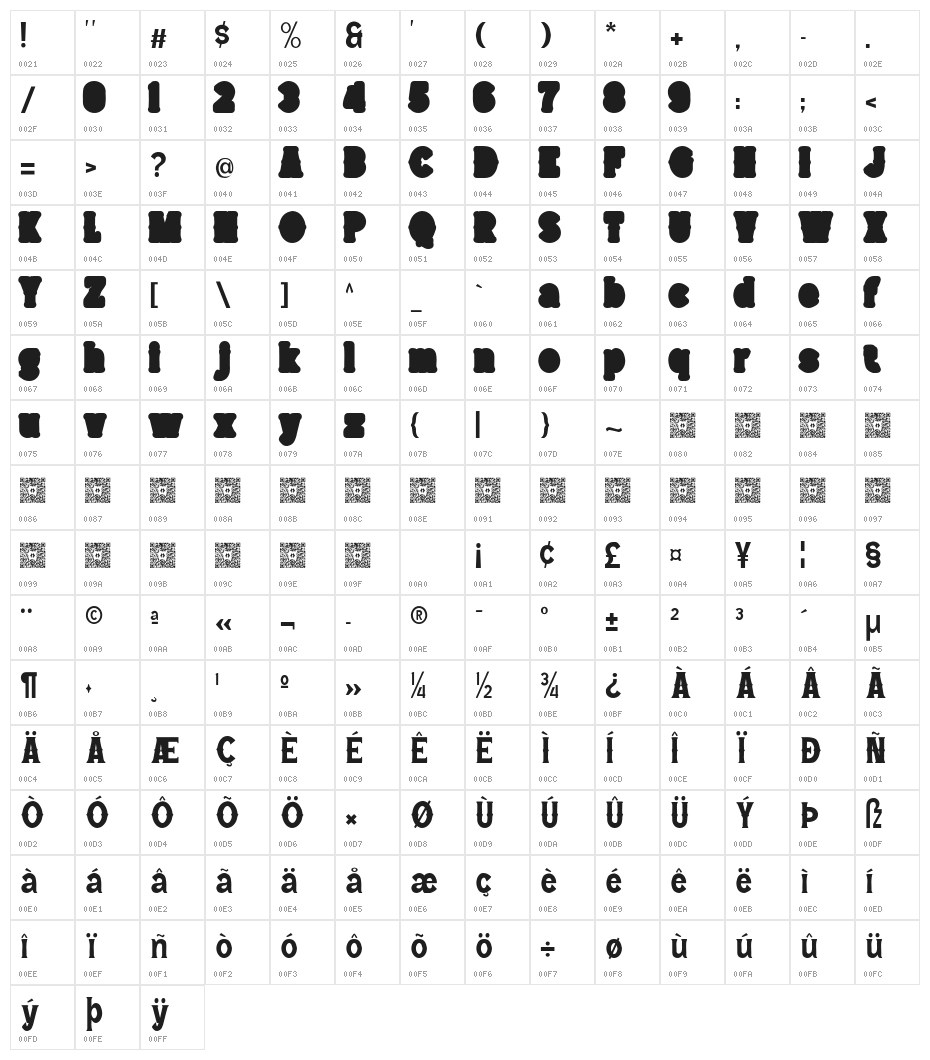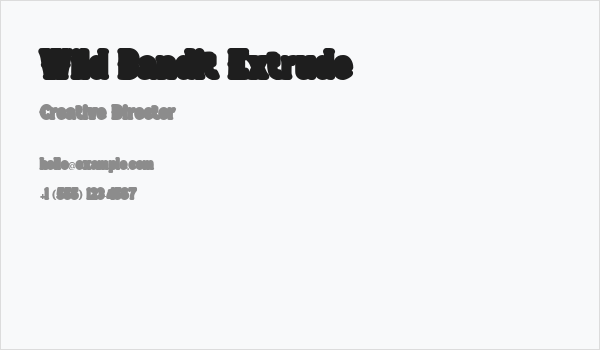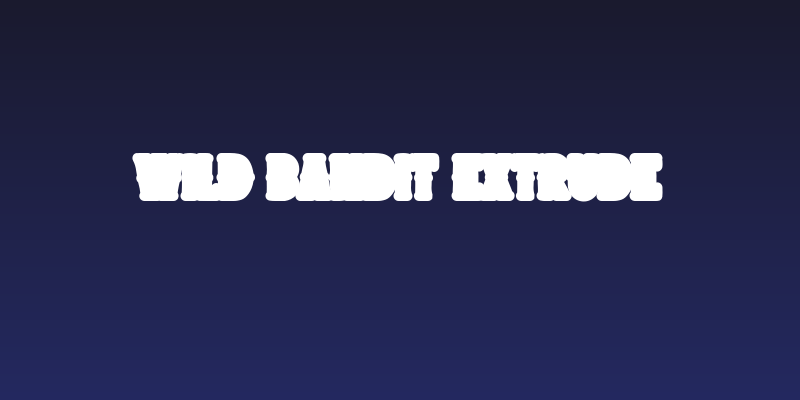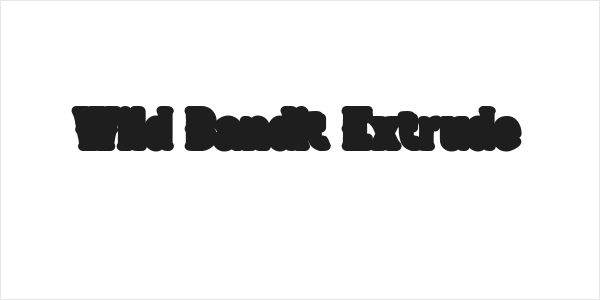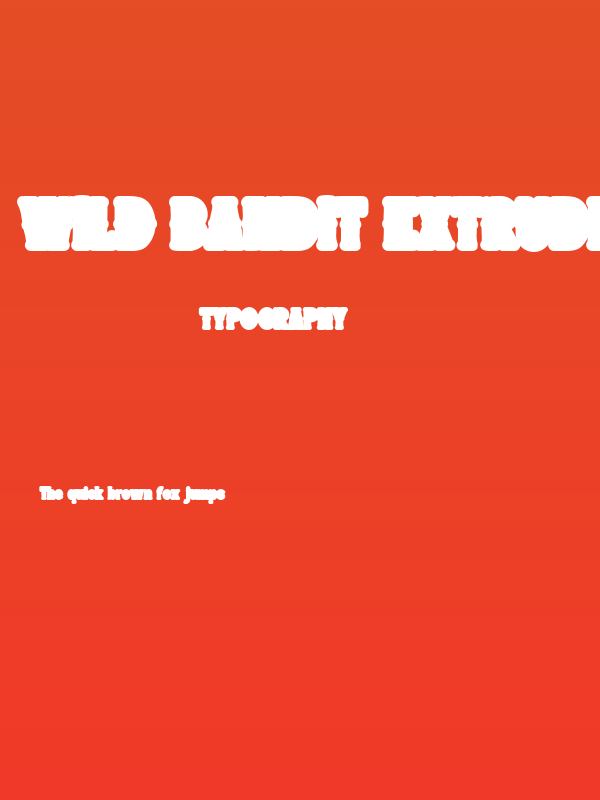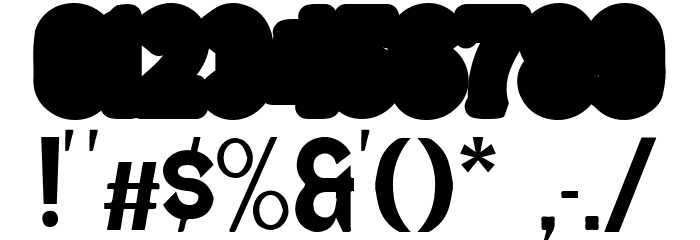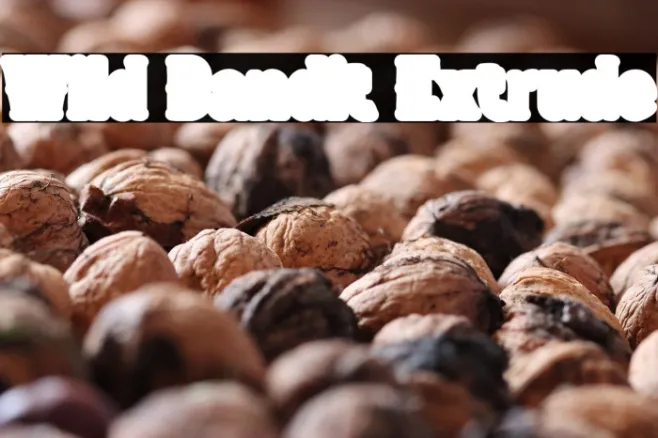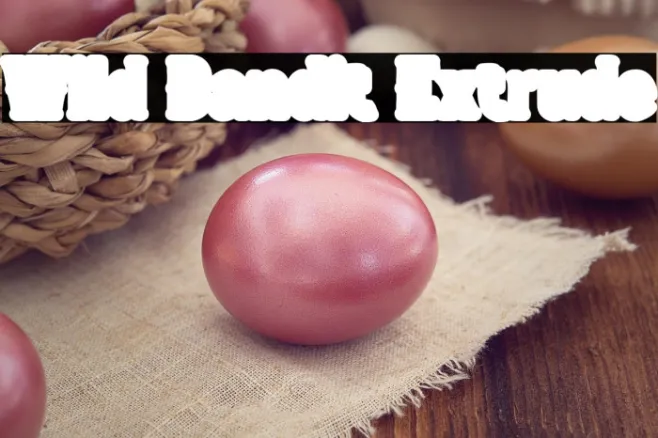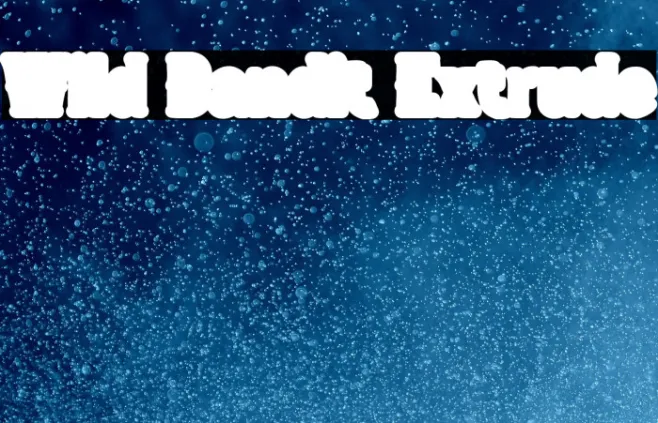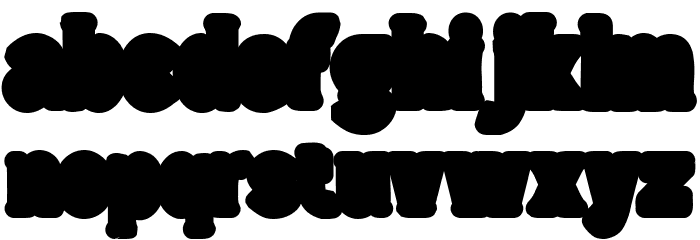
Wild Bandit Extrude Font
Wild Bandit Extrude Description
This font features a bold and chunky design with a strong presence, characterized by its thick, rounded edges and solid forms. The letters are heavily weighted, creating a sense of depth and impact. The style is playful yet assertive, making it ideal for attention-grabbing headlines or titles. The characters are tightly spaced, enhancing the compact and robust appearance. The font includes a full set of uppercase and lowercase letters, numbers, and a variety of special characters, all maintaining the same bold aesthetic. Its unique style is reminiscent of retro or vintage designs, yet it holds a modern twist that makes it versatile for contemporary use.